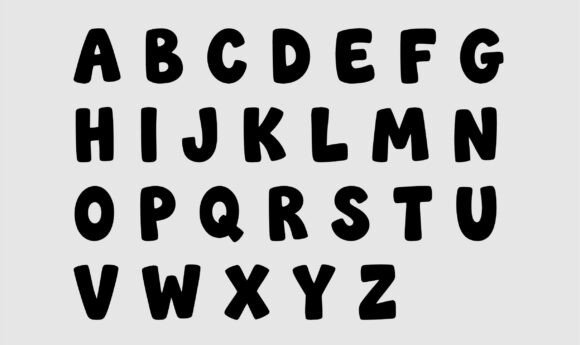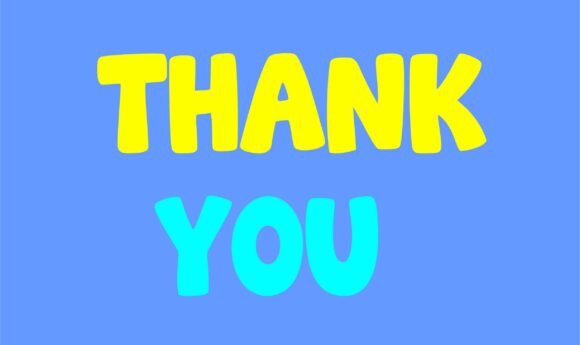
Cherripop Font: Add a Sweet and Lively Touch to Your Designs
Are you looking for a font that can add a fun and energetic vibe to your designs? Look no further than Cherripop, a display font that combines the vibrant look of cherries with modern pop aesthetics. With its bold, rounded letterforms and smooth curves, Cherripop delivers a cheerful and eye-catching appearance that’s perfect for designs that need a lively, sweet, and attention-grabbing touch.
Key Features of Cherripop Font
Cherripop font boasts several key features that make it a standout choice for designers and crafters. These include:
- Smooth, rounded shapes: Cherripop’s rounded letterforms are inspired by the smooth curves of cherries, giving the font a friendly and approachable feel.
- Bold and consistent strokes: The font’s bold strokes ensure that your text stands out, while the consistent stroke widths add a sense of professionalism and polish.
- Playful and eye-catching style: Cherripop’s playful style is perfect for designs that need to grab attention and make a statement.
Ideal Use Cases for Cherripop Font
Cherripop font is ideal for a variety of design projects, including:
- Posters and promotional banners: Add a pop of color and energy to your posters and banners with Cherripop’s bold and playful style.
- Food & beverage packaging: Cherripop’s sweet and lively vibe makes it perfect for food and beverage packaging, especially for brands that want to convey a sense of fun and playfulness.
- Social media graphics: Stand out on social media with Cherripop’s eye-catching style, perfect for creating engaging graphics and posts.
- Kids-themed branding: Cherripop’s playful and cheerful style makes it a great choice for kids-themed branding, including toys, games, and children’s products.
- YouTube thumbnails and titles: Add a touch of fun and energy to your YouTube thumbnails and titles with Cherripop’s bold and attention-grabbing style.
Why Choose Cherripop Font?
So why choose Cherripop font for your design projects? Here are just a few reasons:
- Unique and eye-catching style: Cherripop’s bold and playful style is sure to grab attention and make your designs stand out.
- Versatile and adaptable: The font is suitable for a wide range of design projects, from posters and banners to social media graphics and kids-themed branding.